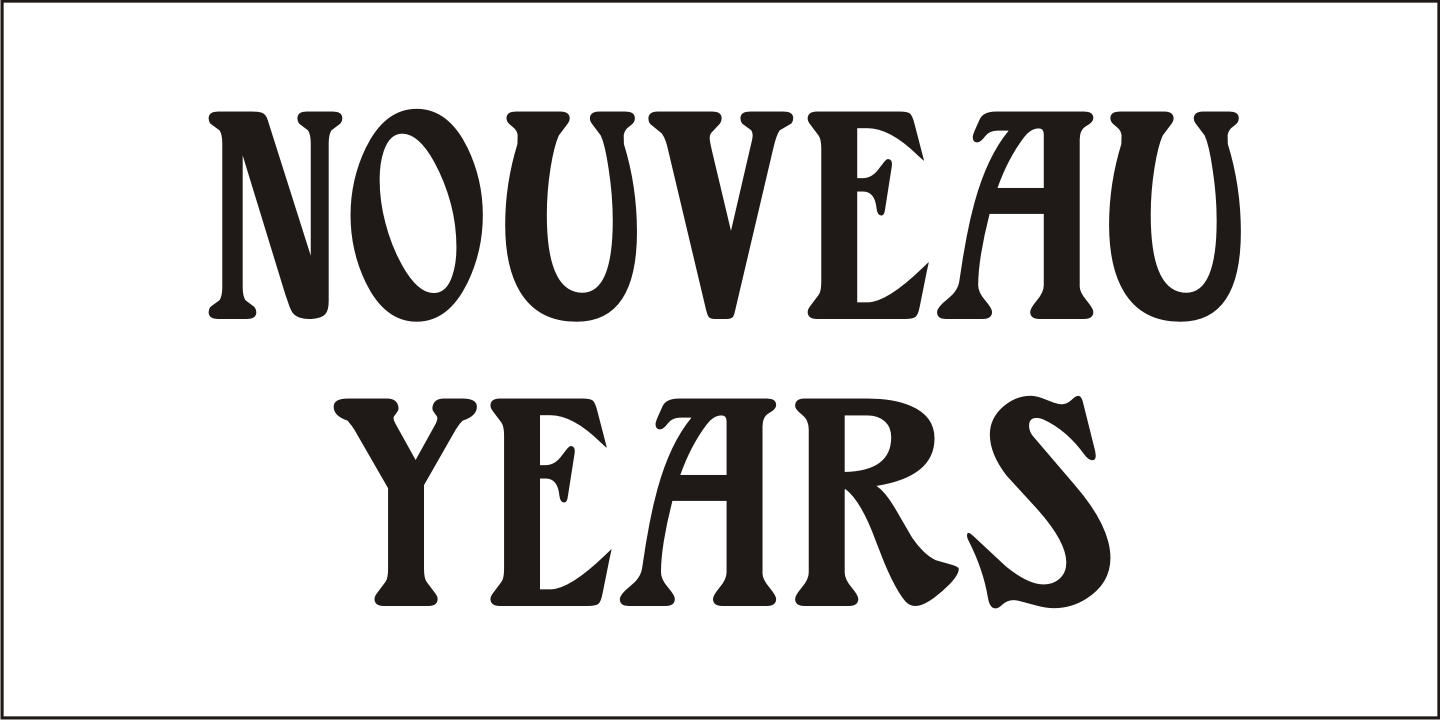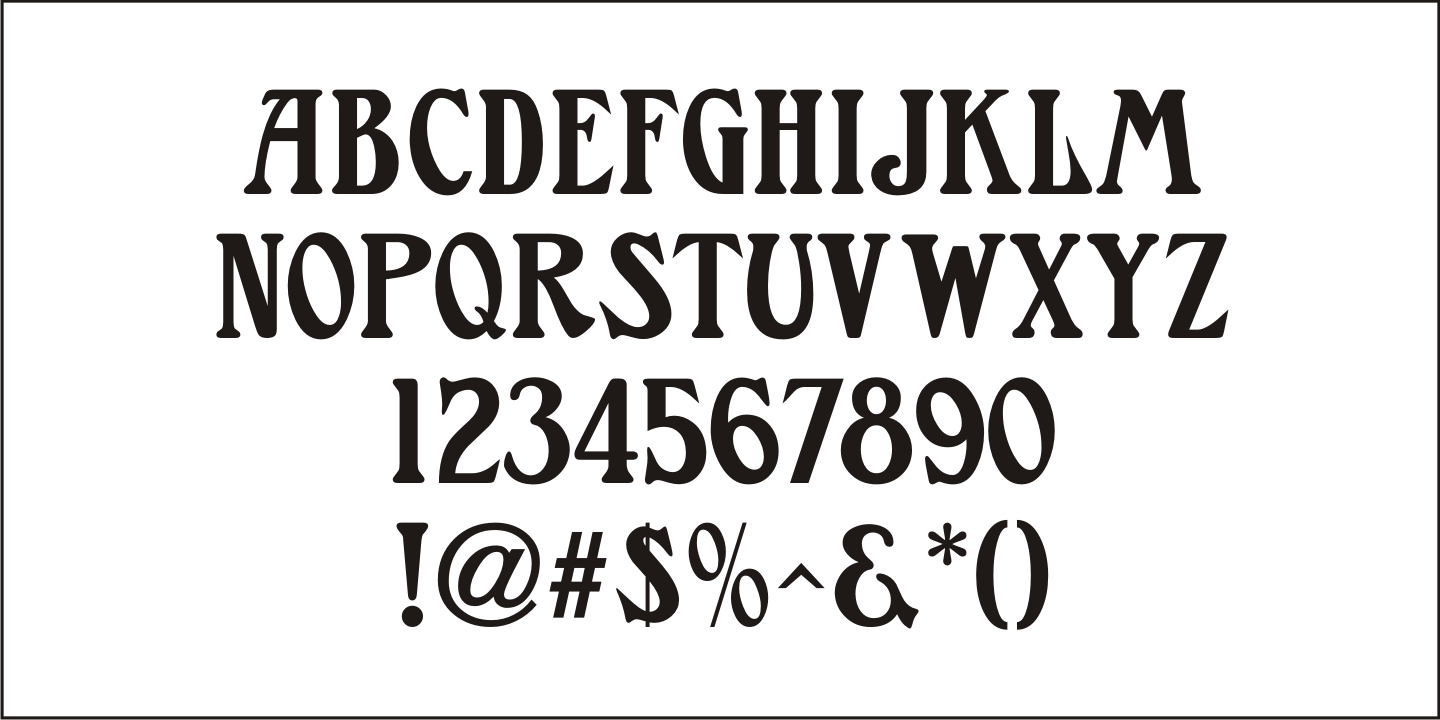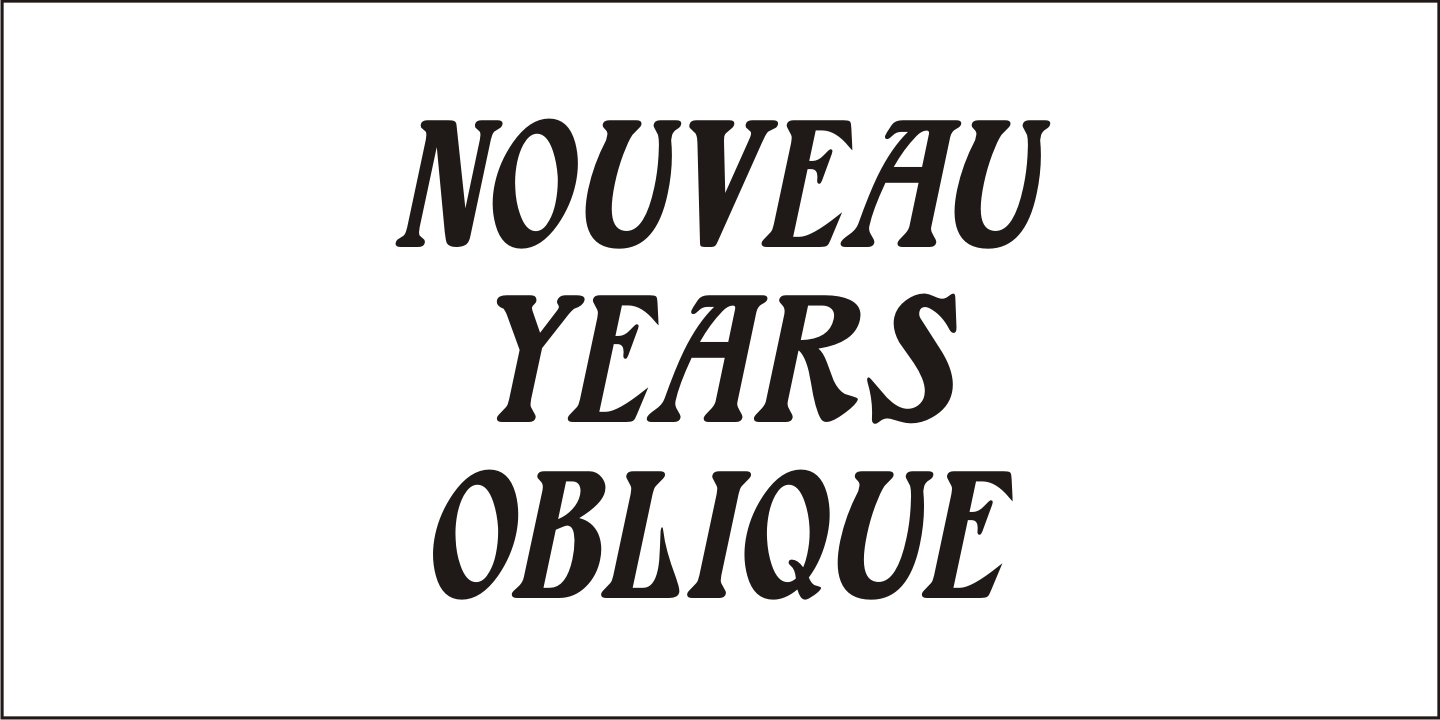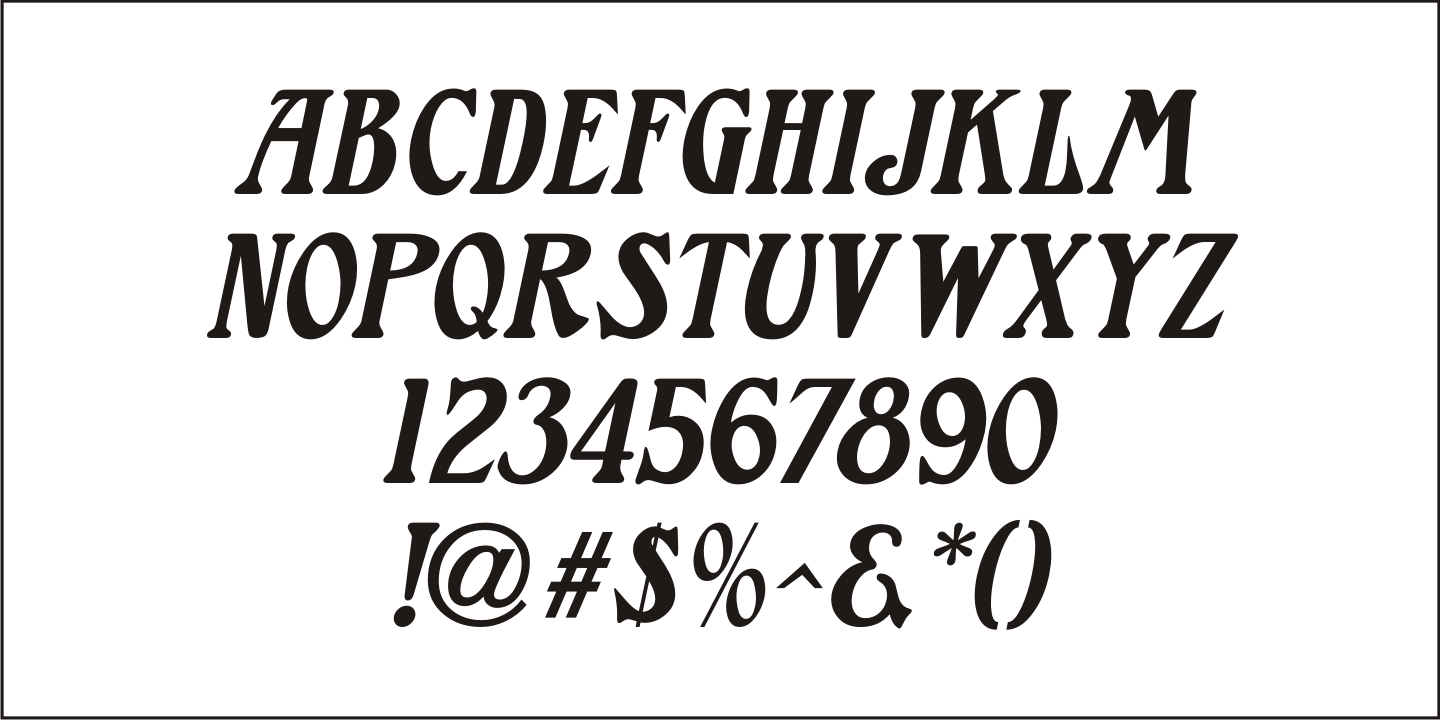
Nouveau Years
Sheet music at the beginning of the 20th Century reflects both the musical and artistic tastes of the times in often colorful ways.
It seemed to be a favorite thing amongst songwriters of that era to come up with very wordy song titles. The cover of the sheet music for 1907's 'Every Little Bit Added to What You've Got Makes Just A Little Bit More” checks in at fourteen words, but the hand lettered title (done in an Art Nouveau style) made it worthy of transposition into a digital type face.
Nouveau Years JNL is available in both regular and oblique versions.
Nouveau Years JNL Regular by Jeff Levine Fonts